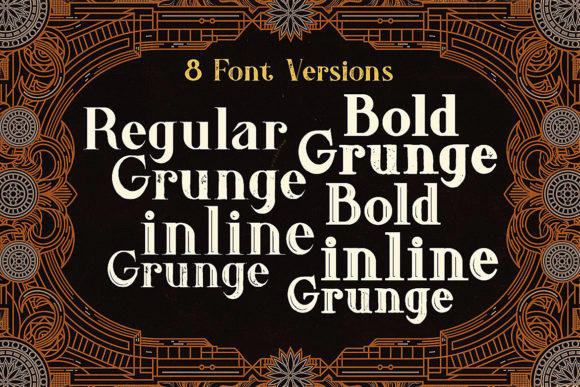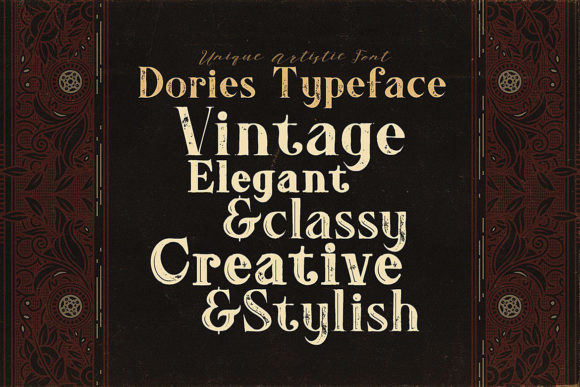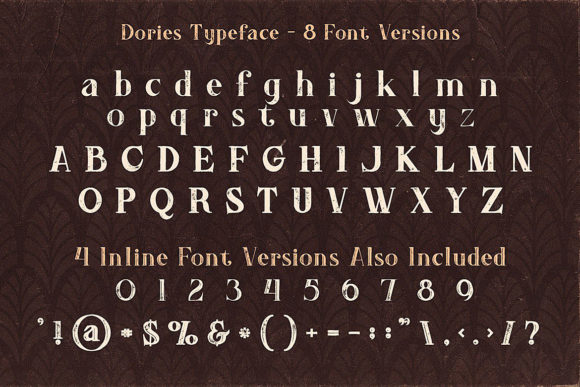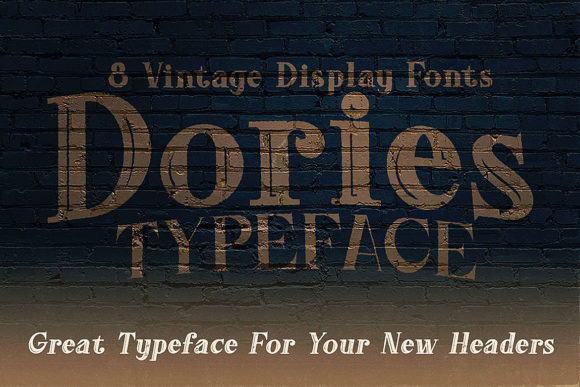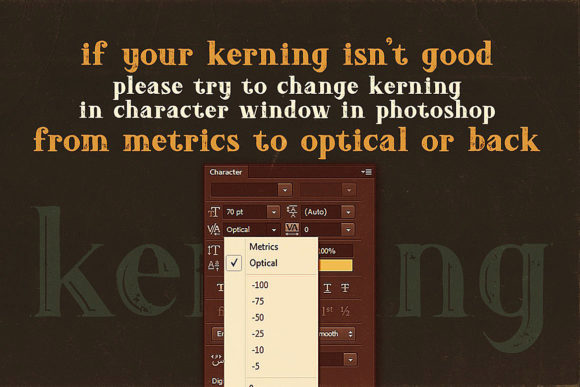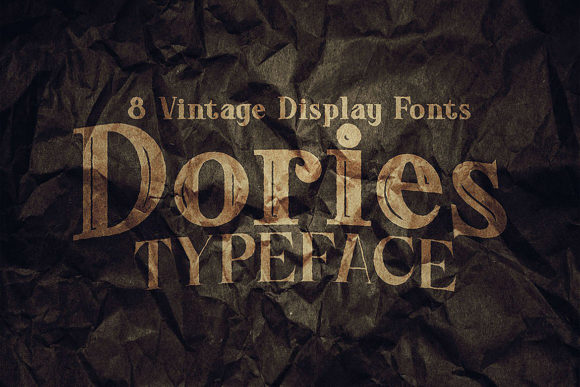
Introduction to Dories Family Font
The Dories is a vintage & grunge display family.
It includes 8 styles which can be used to create multiple unique designs in an instant Kerning instructions: – Please change kering from metrics to optical (or back) in Photoshop characters window (please check image in this zip file).